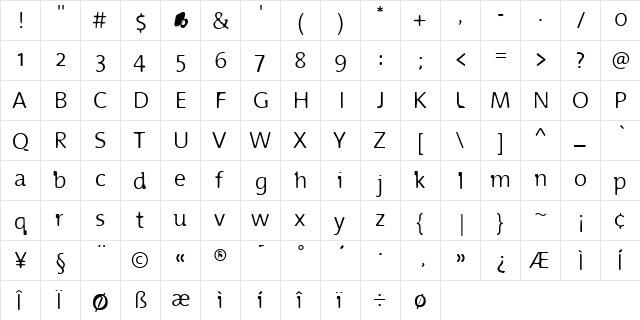
Blurmix Regular
Design Context for Blurmix Typeface
Blurmix offers clean, dependable letterforms without strong stylistic allegiance, making it a practical choice for designers who need flexibility.
Pro Tip: Pair Blurmix with a font of contrasting weight or personality to build a more expressive typographic hierarchy.